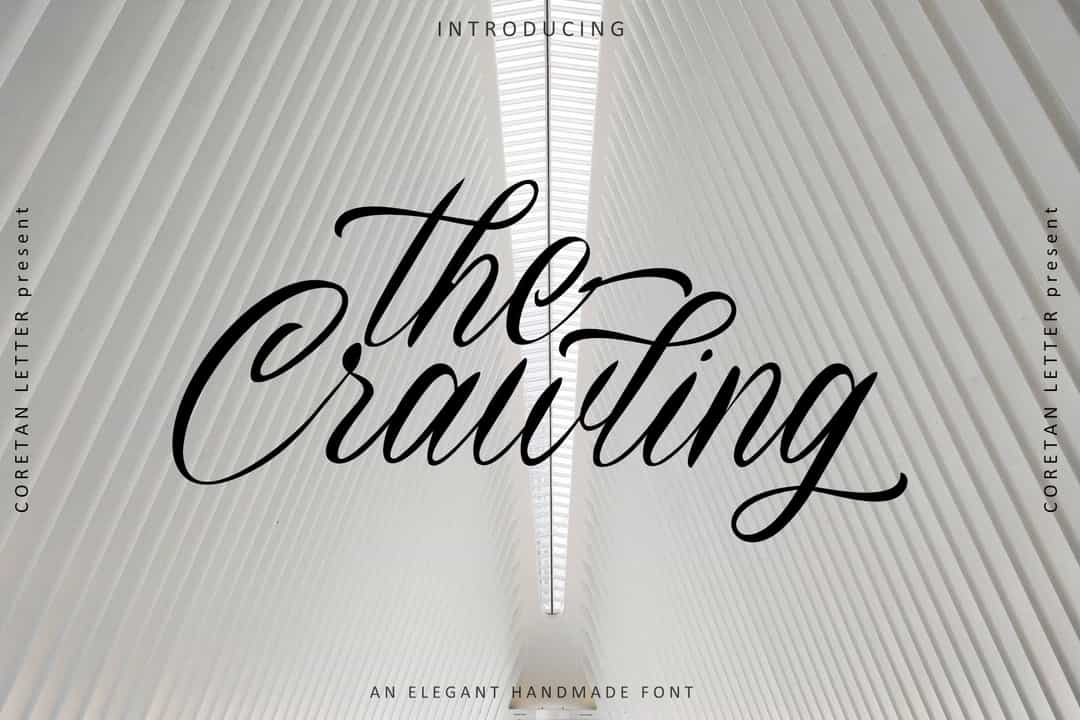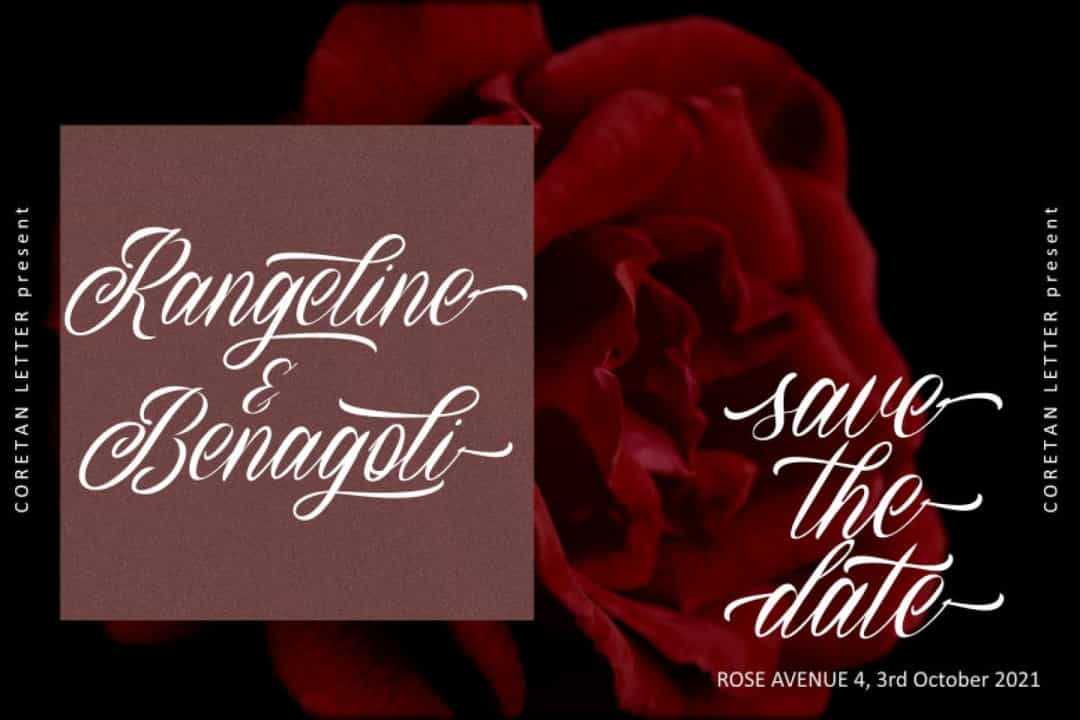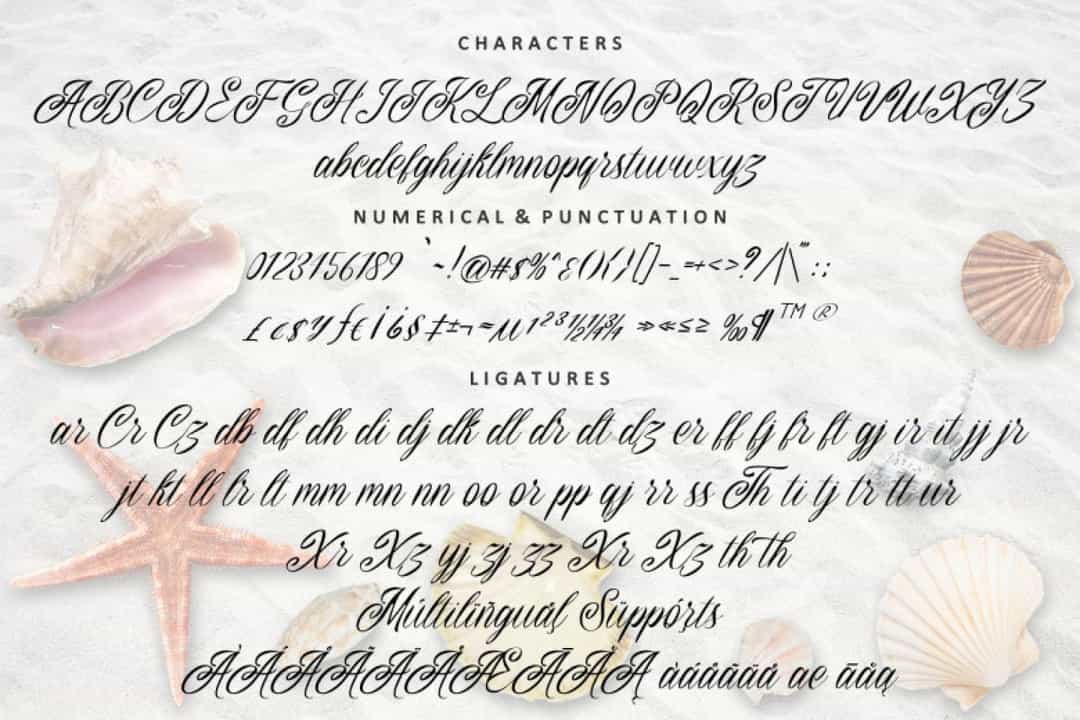
Crawling is a soft flowing, elegant and elegant typeface designed for handwriting. With well balanced characters and its signature Crawling PUA encoded capabilities enabling access to all its glyphs, swashes and characters easily!